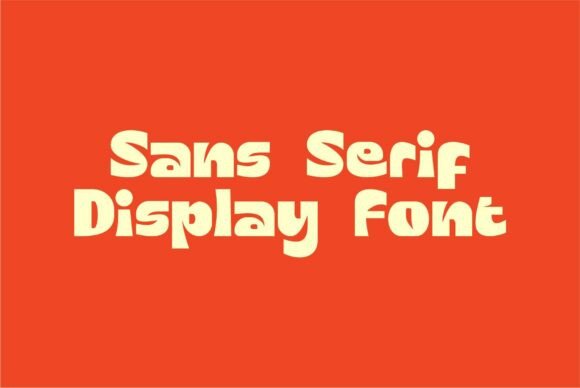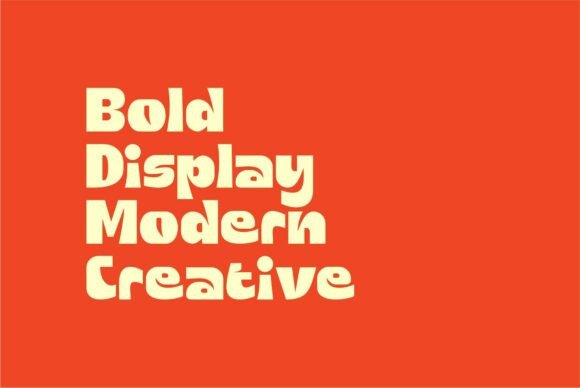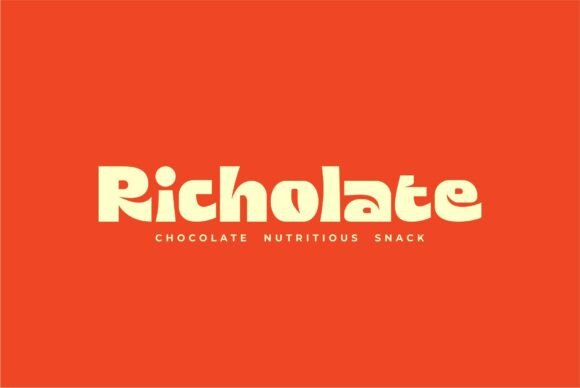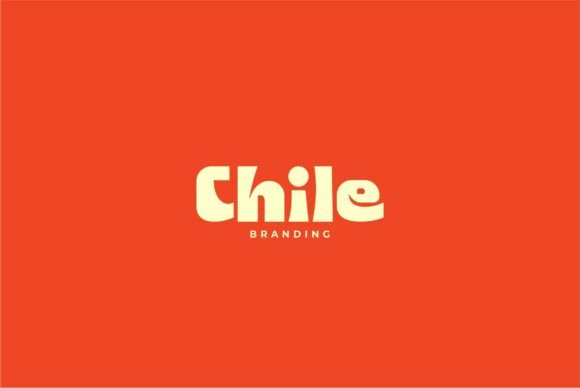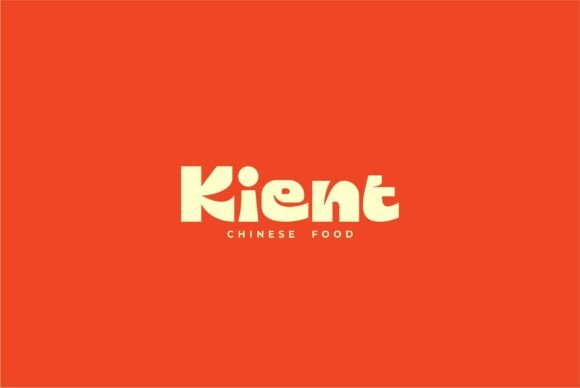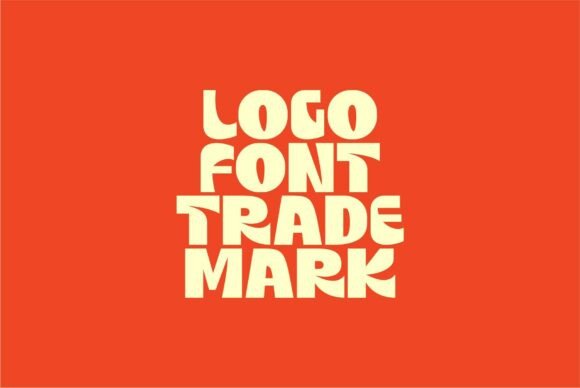
Unleashing Creativity with Regila Font
Imagine you’re brainstorming ideas for a high-energy streetwear campaign, and you stumble upon a font that perfectly captures the essence of your brand’s rebellious spirit. You’re not just looking for any ordinary font – you want something that demands attention, something that makes a statement. That’s where Regila Font comes in – a game-changing display sans that’s about to revolutionize your design projects.
As a designer, you’re constantly on the lookout for that one special resource that can elevate your creative project to the next level. Regila Font is that secret ingredient, offering a unique blend of retro and modern elements that will make your designs stand out from the crowd. Whether you’re working on a bold social media header or a high-impact poster, this font is sure to command attention and leave a lasting impression.
With its ultra-bold letterforms and hand-drawn “waves”, Regila Font is a free download that’s perfect for designers who want to add a touch of sophistication and authority to their designs. Plus, its transparent background makes it easy to work with, allowing you to focus on what really matters – creating high-quality designs that speak to your audience.
Key Features of Regila Font
- Designed with a modern and sleek aesthetic, making it perfect for a wide range of creative projects
- Unique characteristics include a clean and minimalist design, making it perfect for branding, logos, and corporate identity projects
Honest Review: Regila Font
As a designer, I’m always on the lookout for high-quality design resources to enhance my creative projects. The Regila Font is one such find that caught my attention, and I’m excited to share my thoughts on it.
- Unique and modern design: The Regila Font boasts a sleek, modern aesthetic that’s perfect for contemporary projects.
- High-quality graphics: The font’s graphics are crisp and clear, making it ideal for print and digital applications.
- Transparent background: While the font’s transparent background is a great feature, it can sometimes make it difficult to use in certain design scenarios.
- Limited customization options: The font’s design is fixed, which may limit its versatility for designers who prefer more customization options.
Overall, I’m impressed with the Regila Font’s design and quality. While it may have some limitations, it’s a solid addition to any designer’s toolkit. I’d definitely recommend it for designers working on contemporary projects that require a modern, high-quality font.
The Regila Font is suitable for a variety of creative projects, including logos, business cards, posters, and social media graphics.